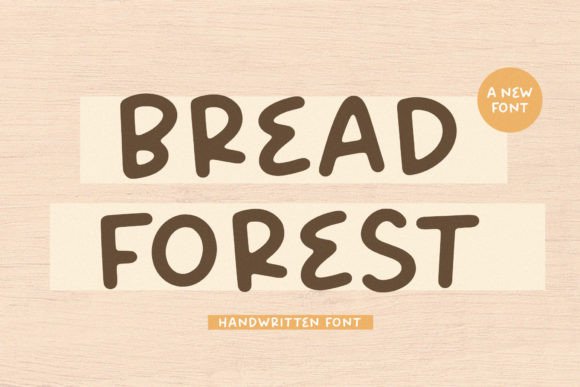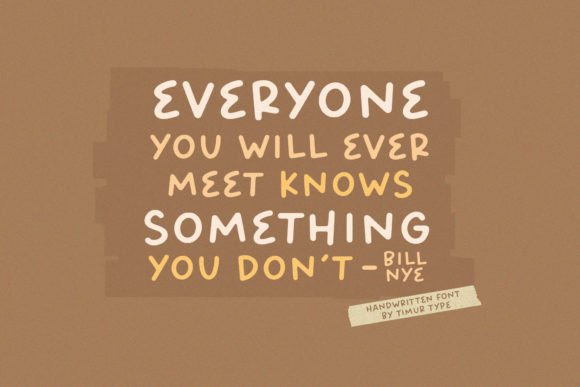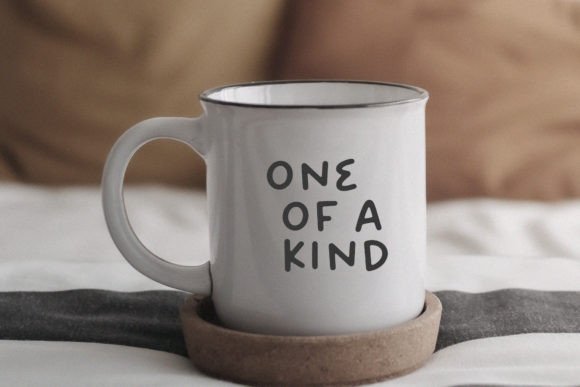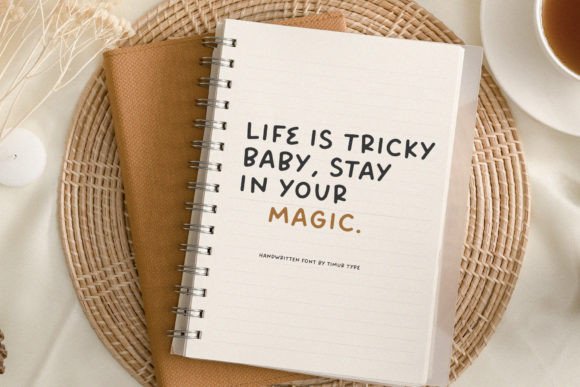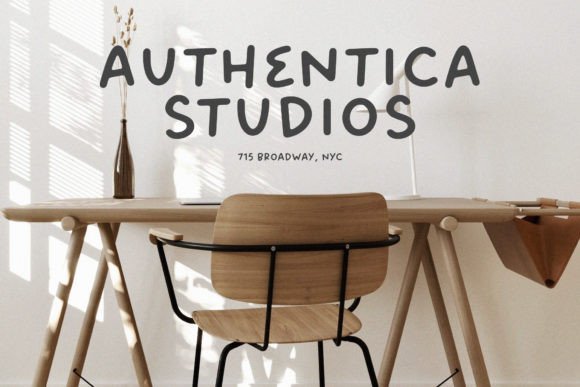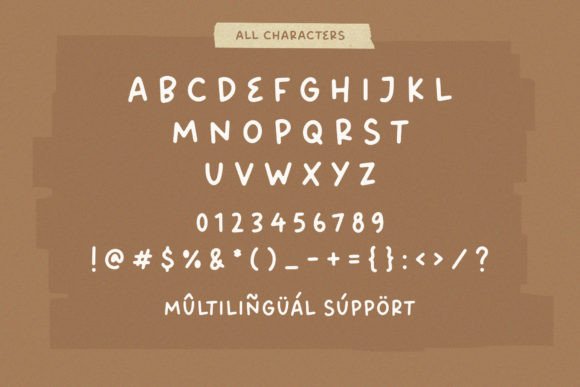
About Bread Forest
Bread Forest is a fun and quirky handwritten font. This typeface will enhance your craft with little effort, making your product stand out from the competition.